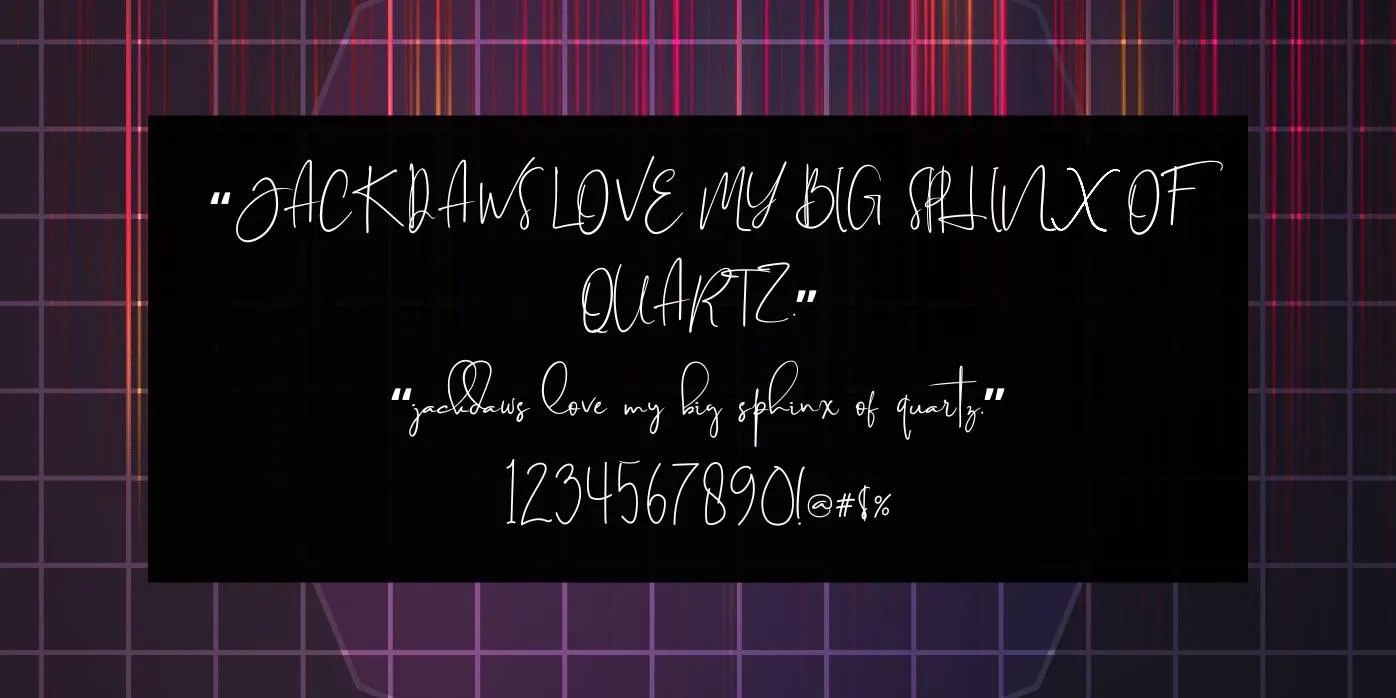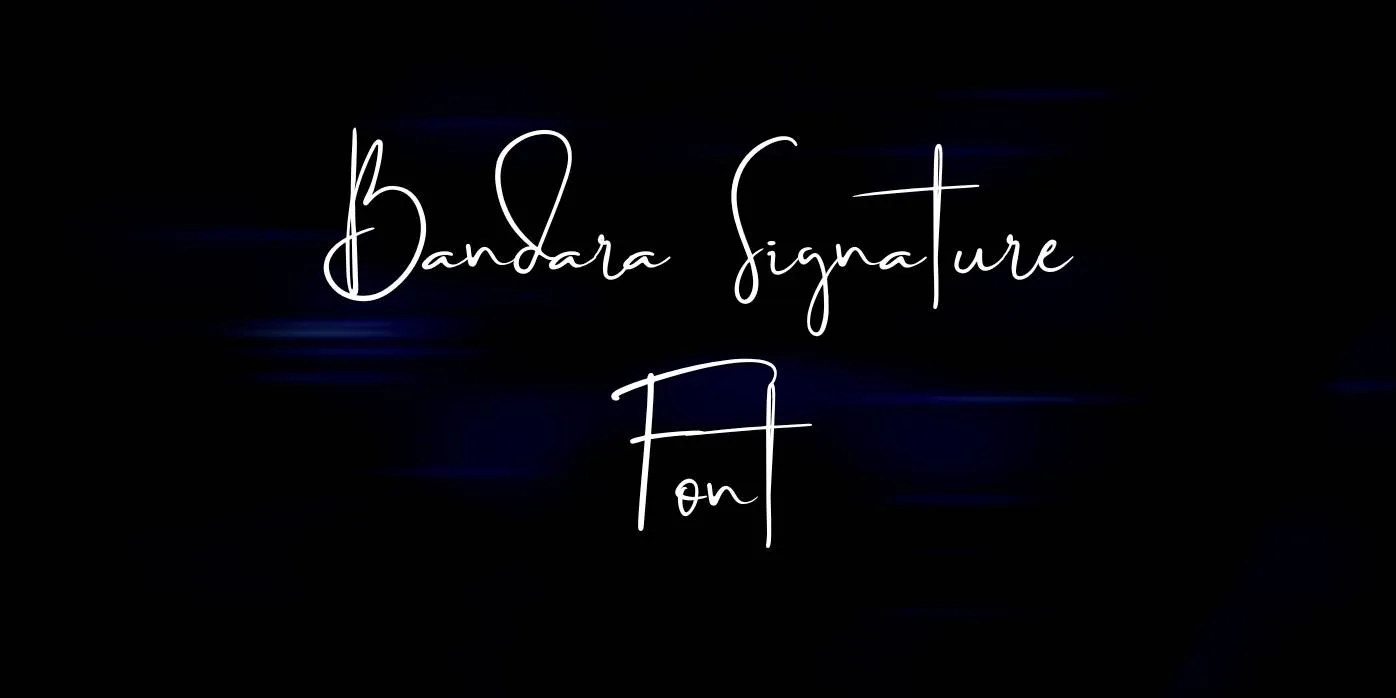
Bandara Signature Font
Bandara Signature Font is a stylish font with a pretty and low-readable texture. This typeface is an amazing one due to a lot of uses in various types of projects. The texture you have to pair with this texture is the royal signature font. There are so many various typefaces are also available to be paired with this texture.
Some of them include monsier font, outlander font, and many other typefaces like that. Moreover, this texture also utilize in many useful and famous softwares like Canva, Photoshop, PowerPoint, Microsoft Excel, MS Word, Autocad, Adobe Illustrator, and the famous website designing language CSS. The characters of this typeface are thin, stylish, and flexible to be adapted by the many valuable designs and projects.